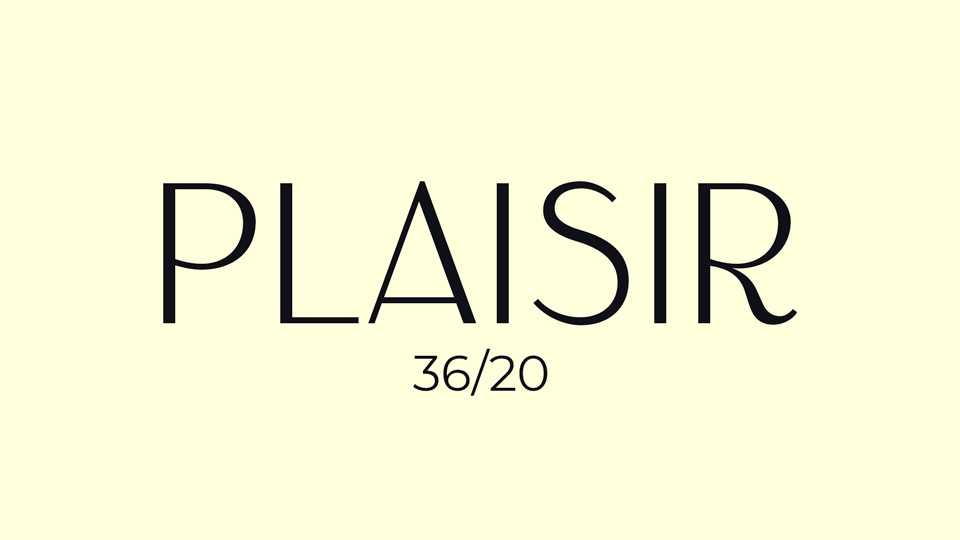
Download Plaisir font, a retro sans serif typeface inspired by a beautiful art deco lettering, on a piece of ephemera from the 1937 World Expo in Paris.
Designer: Justin Penner